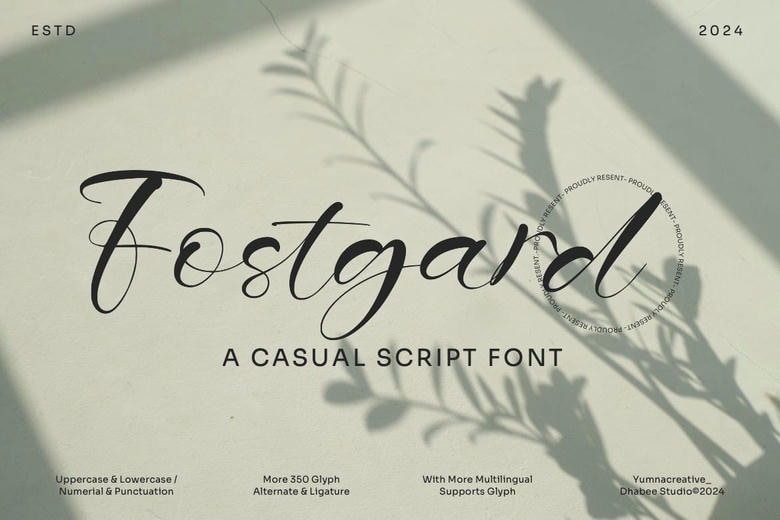
Fostgard Font
Fostgard Font – Casual Script Font. This Font is a beautiful, tasteful and graceful handwritten font. For it is beautiful and well, and has a balance of ligatures a letter so that the authors write it with a and a little swirly embedding so that a modern fonts is being readied and ready to state it and give elegance and uniqueness in its new design projects.
Fostgard Handwritten Script Font